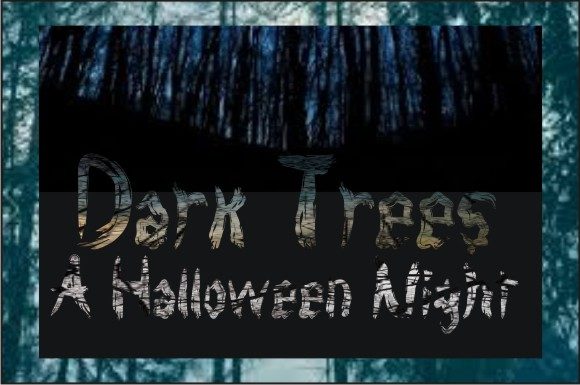
In the mystical realm of typography, where letters dance and stories unfold, there lies a font that captivates the senses and ignites the imagination – Dark Trees Font. This spellbinding display font, conjured by the master of mystical arts, Gustavo Lucero, is a portal to a world of enchantment, where words transform into haunting whispers and designs take on an eerie allure.
Unleash the Dark Trees Font and witness the transformation of your creative projects into mesmerizing masterpieces. This font, with its captivatingly spooky charm, is the perfect companion for crafting Halloween wonders. Its bewitching characters, reminiscent of gnarled branches reaching out from a haunted forest, cast an enchanting spell on your designs, evoking a sense of mystery and intrigue.
Imagine sending shivers down the spines of your audience with Halloween invitations adorned with Dark Trees Font's haunting elegance. Let your social media posts cast a spell with captivating quotes rendered in this font, drawing your followers into a world of enchantment. Create posters and flyers that evoke the spirit of Halloween, inviting all who dare to embrace the mystical allure of Dark Trees Font.
From website designs that send chills down the spine to merchandise that oozes haunting charm, Dark Trees Font is the key to unlocking a realm of creative possibilities. Its versatility extends beyond the realm of Halloween, lending a touch of spooky sophistication to a wide range of projects. Whether you're designing logos that command attention or creating captivating presentations that leave a lasting impression, Dark Trees Font is your secret weapon for captivating your audience.
Experience the magic of Dark Trees Font today and embark on a creative journey that will transport you to a world of enchantment and intrigue. Let your imagination run wild and create designs that are as unique and captivating as the font itself. Dark Trees Font awaits you, ready to unleash your creativity and cast a spell on all who encounter it.